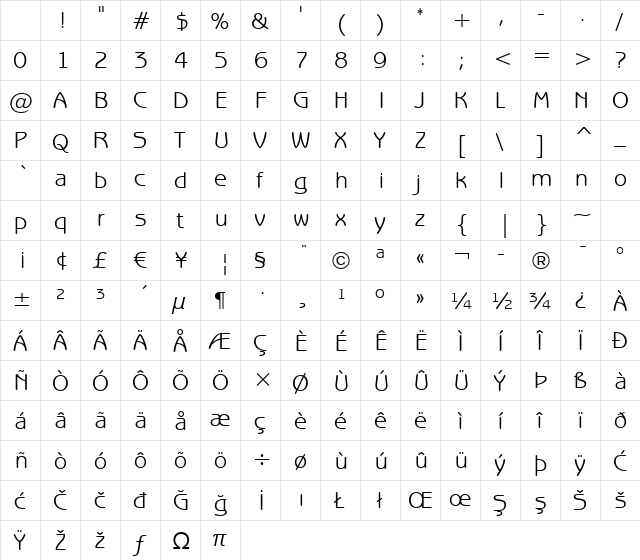
Complete BenguiatGot Bk BT Book glyph index. Displaying only characters natively supported by BenguiatGot Bk BT Book font.
BenguiatGot Bk BT is a composed and adaptable typeface that performs quietly and consistently across a wide range of design contexts.